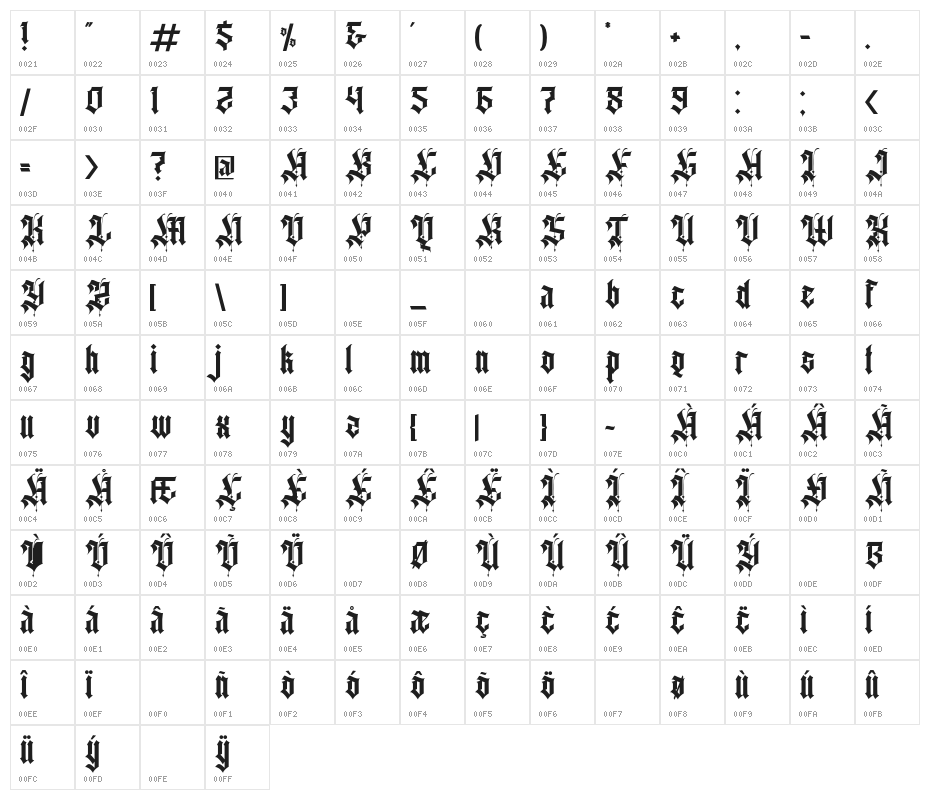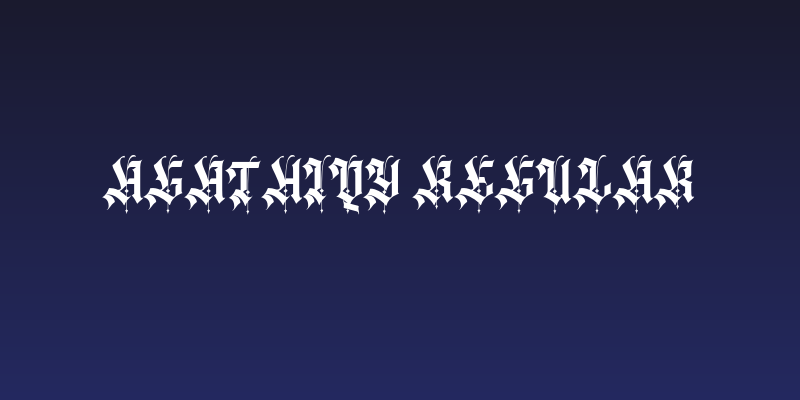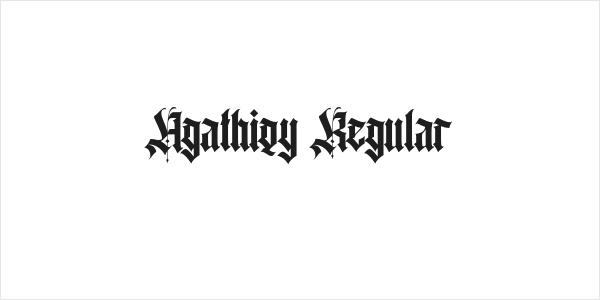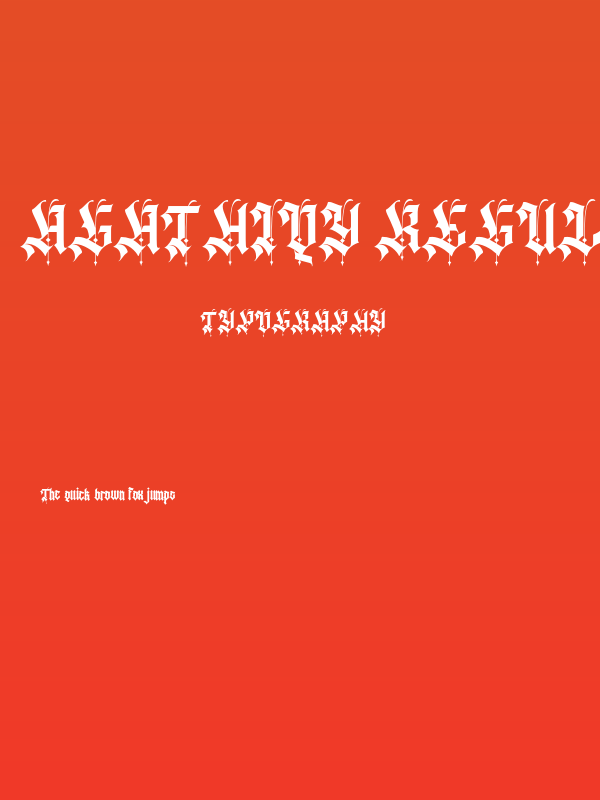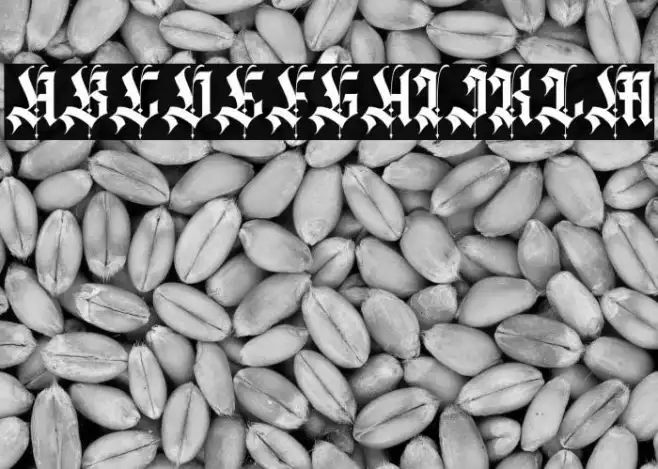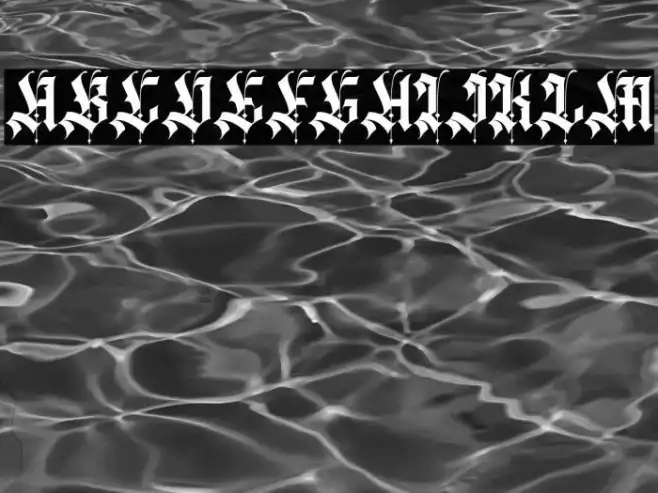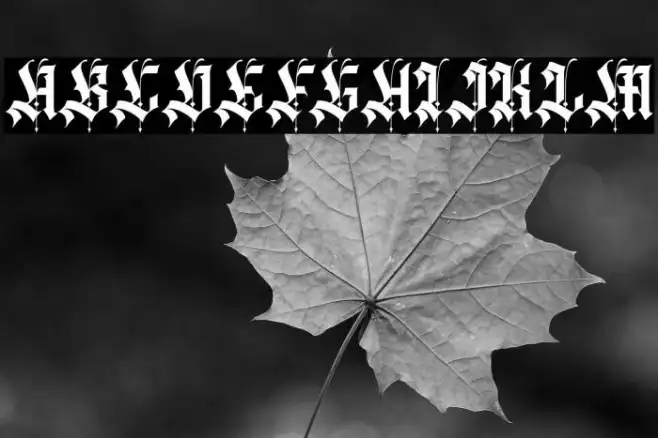
Agathiqy Regular Font
Agathiqy Regular Description
This font exhibits a bold and dramatic blackletter style, characterized by its intricate and angular letterforms. The uppercase letters are ornate, with sharp edges and pointed serifs, creating a sense of historical elegance. The lowercase letters maintain the same level of detail, offering a cohesive and visually striking appearance. The numerals are equally elaborate, fitting seamlessly with the overall aesthetic. Special characters are designed with the same attention to detail, enhancing the font's decorative nature. This font is ideal for projects that require a touch of medieval or gothic flair.
| Proposed Projects | Suitable for historical or gothic-themed designs, such as book covers, posters, or branding for vintage products. |